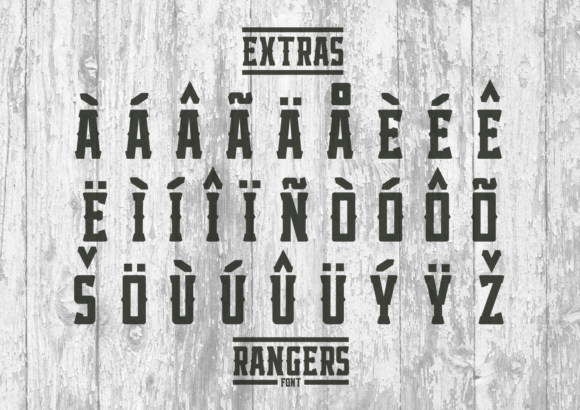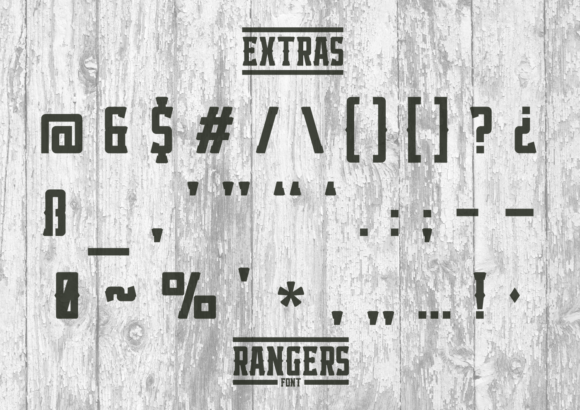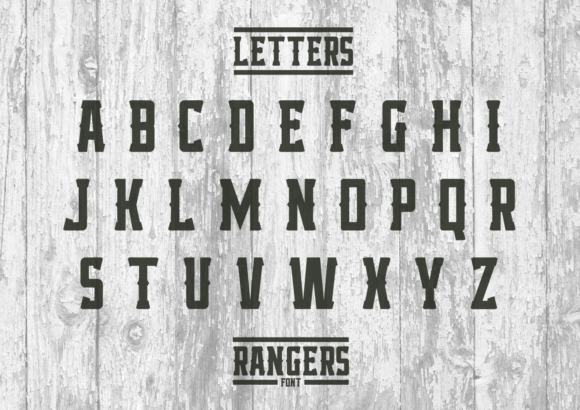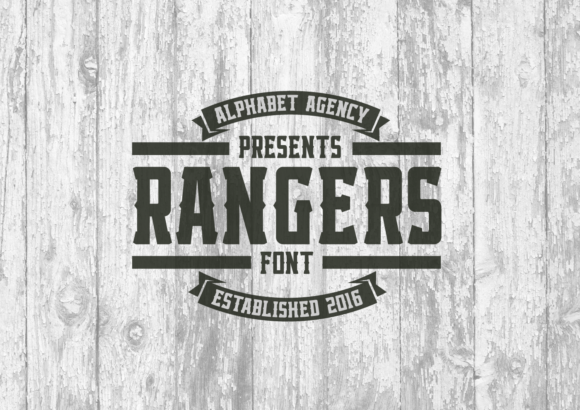
Introduction to Rangers Font
Rangers is a cool, bold and thick lettered display font.
It will look stunning on any poster flyer or print Use this font for your designs and explore its endless possibilities.
Key Features of Rangers Font
Why Choose Rangers Font?